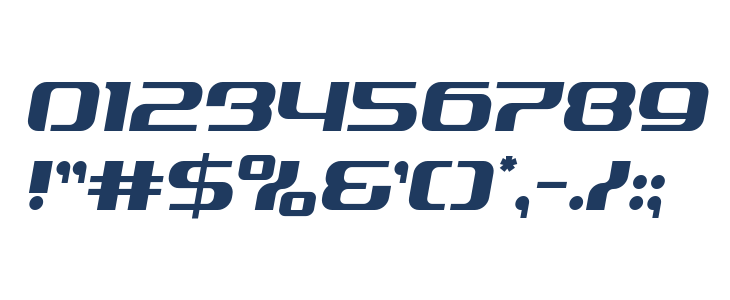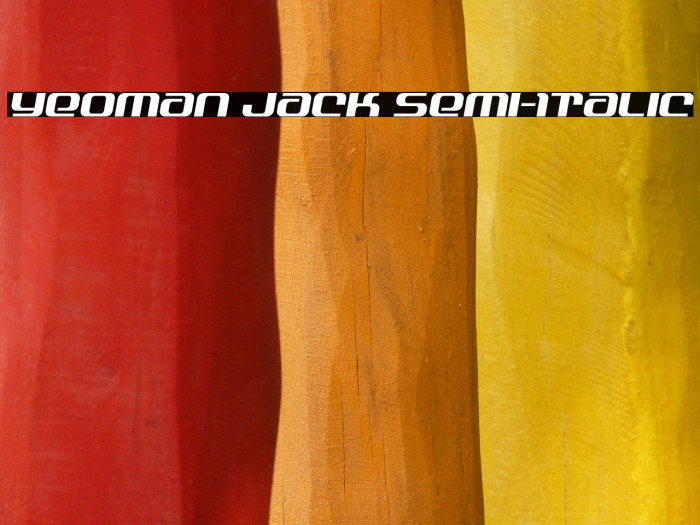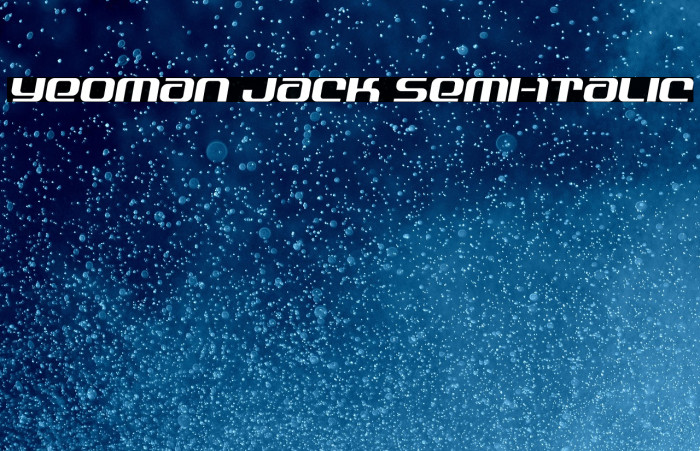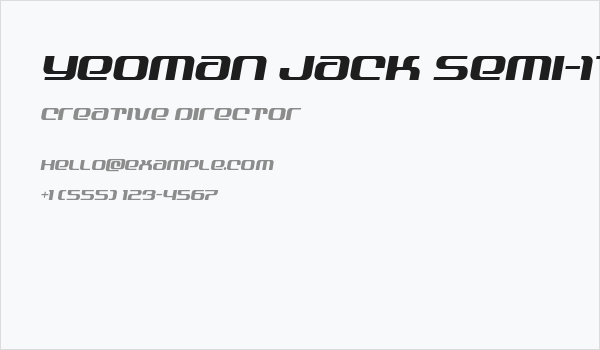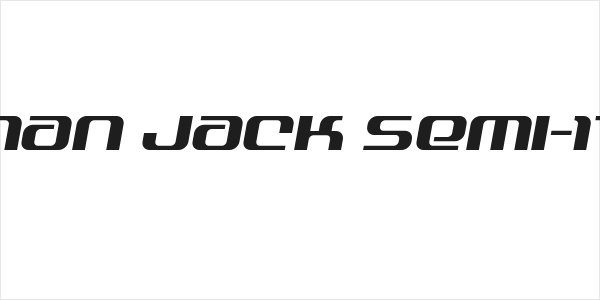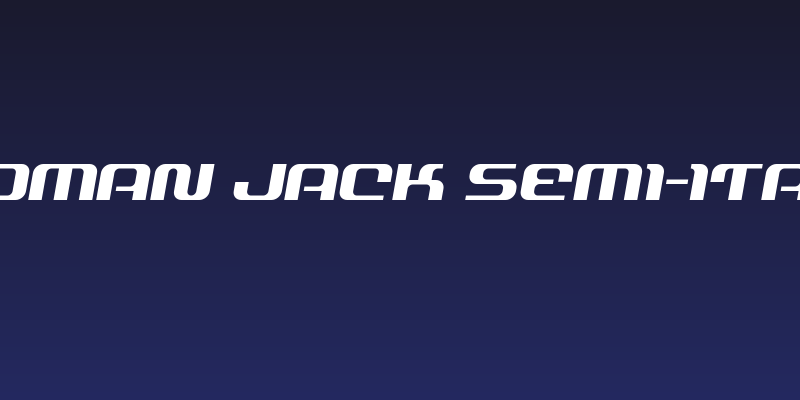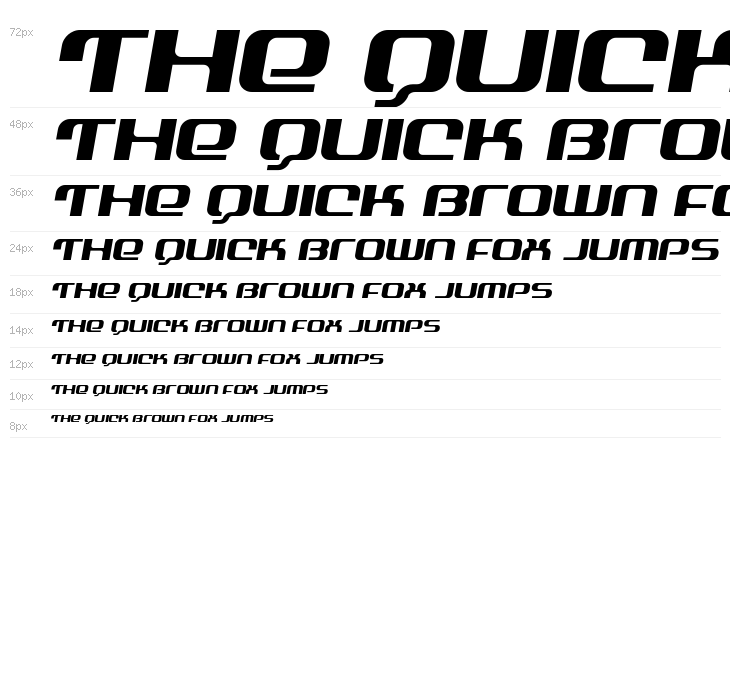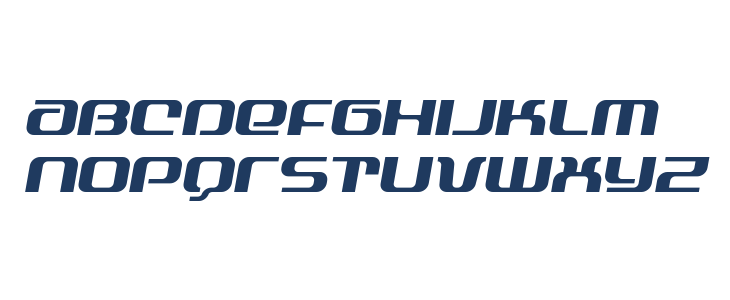
Yeoman Jack Semi-Italic Font
Yeoman Jack Semi-Italic Description
This font features a bold and dynamic style with a semi-italic slant, giving it a sense of motion and energy. The characters are designed with a futuristic and sleek appearance, characterized by sharp angles and smooth curves. The uppercase and lowercase letters maintain a consistent style, while the numbers and special characters complement the overall design. The font's boldness and unique style make it suitable for projects that require a modern and impactful look.
| Proposed Projects | Ideal for branding, sports team logos, technology-related projects, and modern advertising campaigns. |